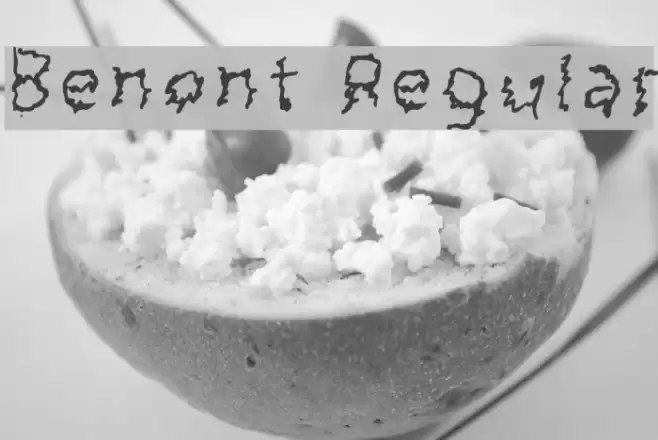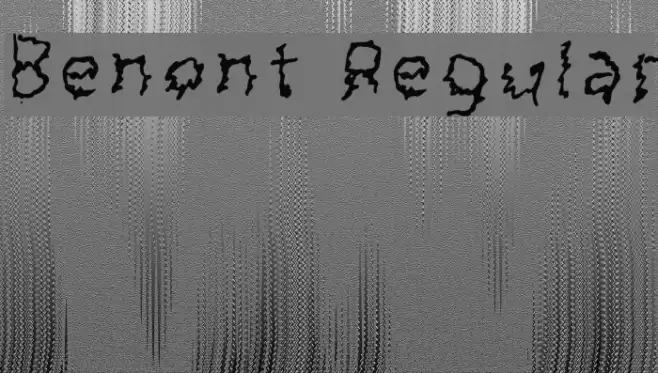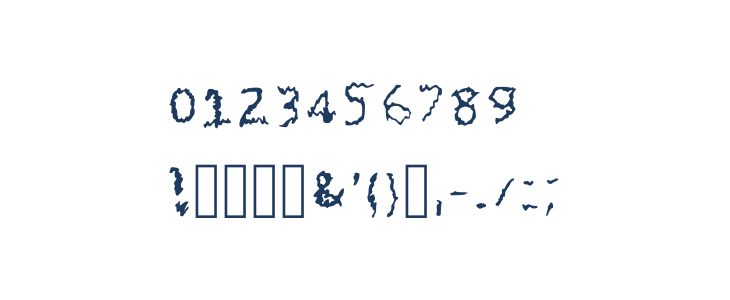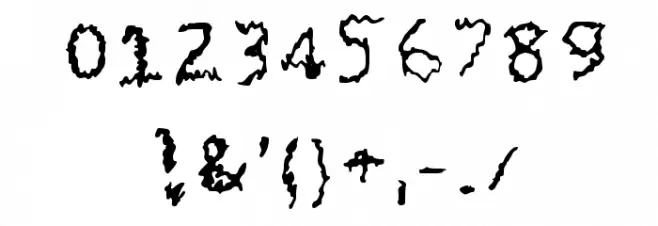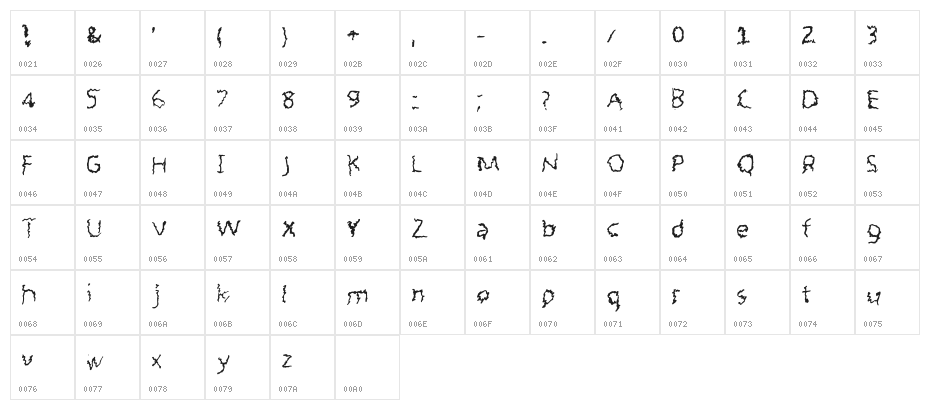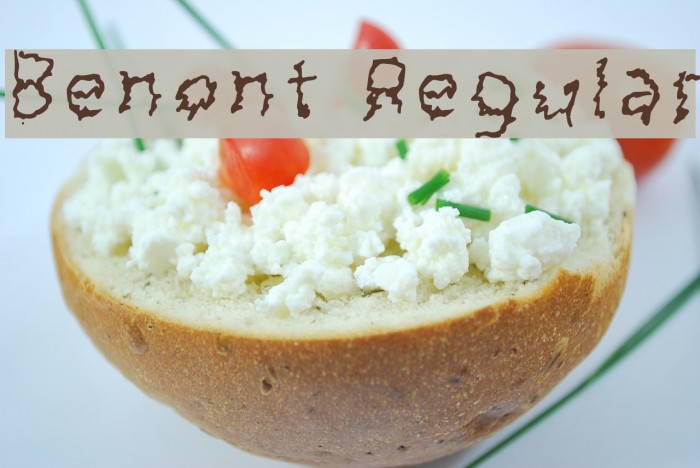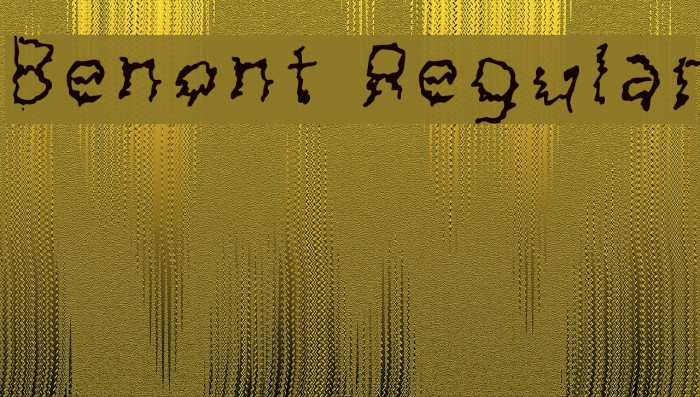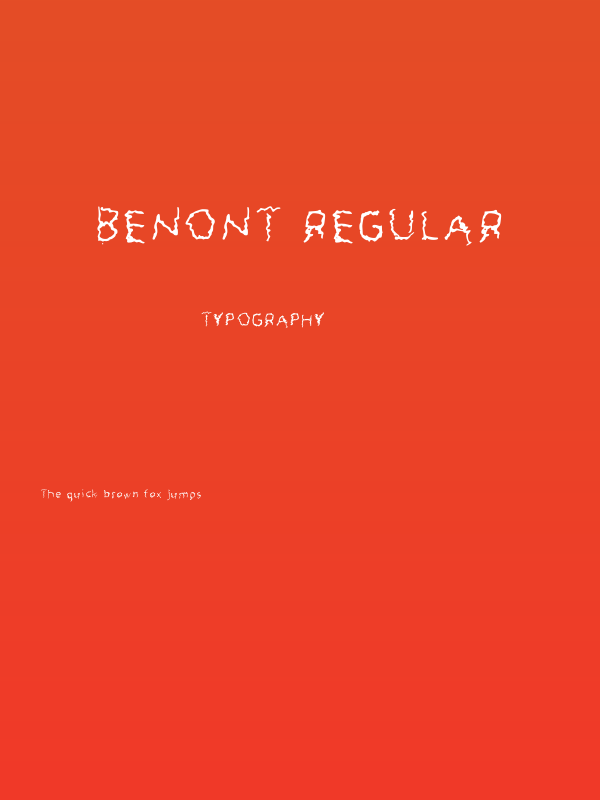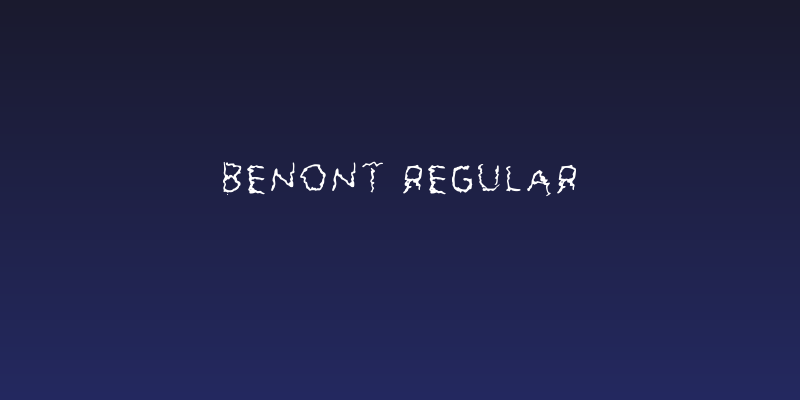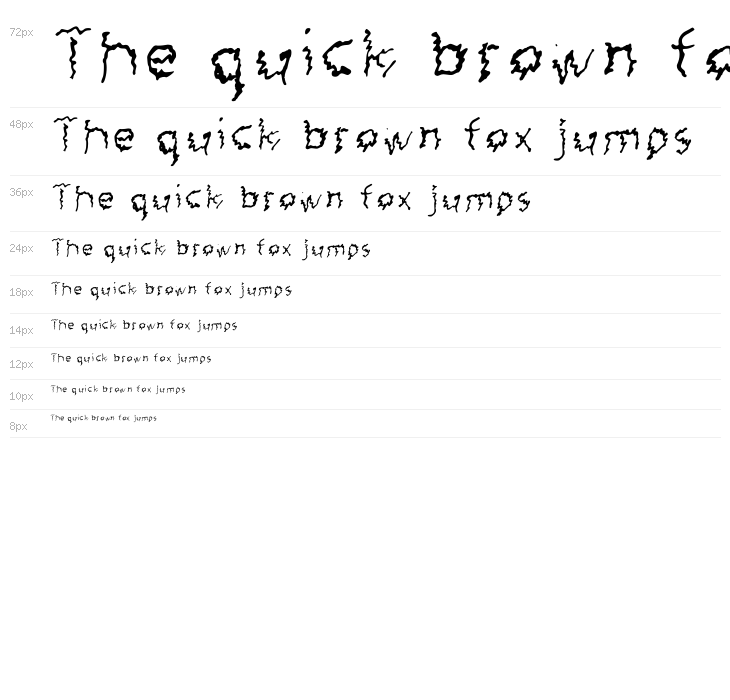
Benont Regular Font
Benont Regular Description
This font features a highly decorative and jagged style, reminiscent of organic, thorny vines or cracked surfaces. The characters have an irregular, hand-drawn appearance, with uneven edges and varying stroke thicknesses that create a dynamic and somewhat chaotic visual effect. The uppercase and lowercase letters maintain a consistent theme, while the numbers and special characters follow suit with the same rugged aesthetic. This font is ideal for projects that require a bold, eye-catching look with a touch of edginess and creativity.
A jagged, decorative font with an organic, hand-drawn appearance from Uncategorized fonts.
- Proposed Projects: Perfect for Halloween-themed designs, edgy posters, album covers, or any project needing a bold, unconventional typeface.